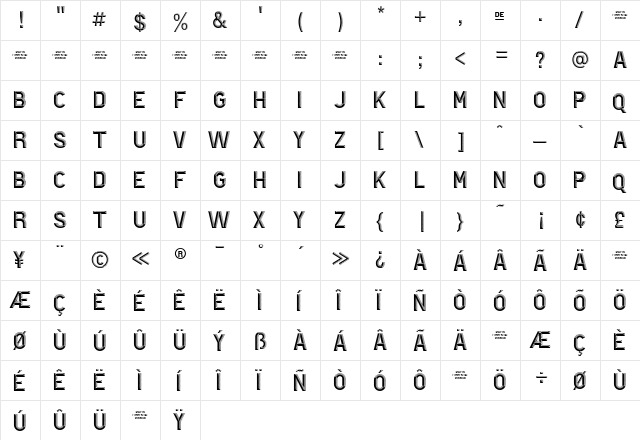
Hotel De Paris Regular
| Foundry | Clement Nicolle - StereoType |
| Designer | Clement Nicolle - StereoType |
Design Context for Hotel De Paris Typeface
Hotel De Paris takes a measured approach to typography — its balanced proportions and neutral character make it a reliable workhorse for both digital and print work.